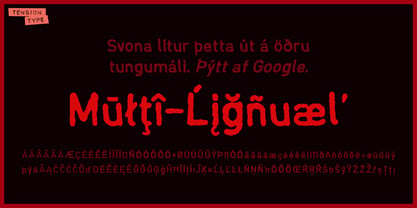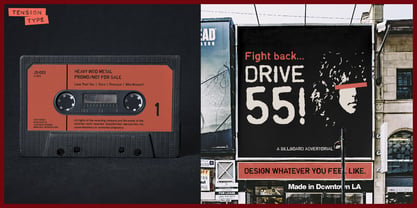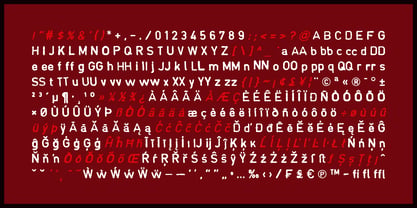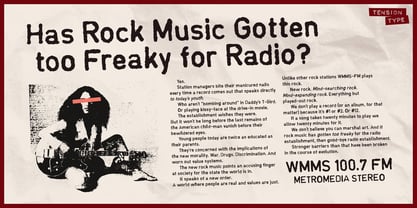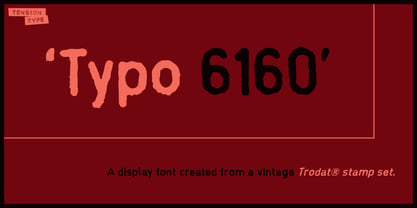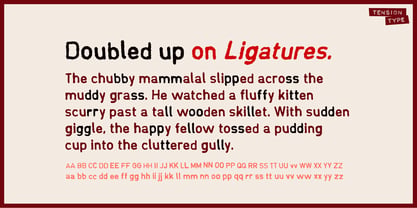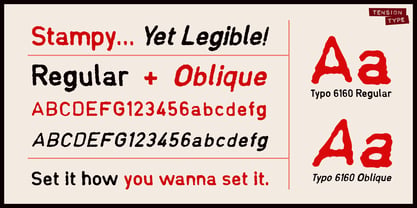
Typo 6160
by Tension Type
Typo 6160 was created from the letters of a vintage Trodat Typo 6160 stamp set that was made in the 1970s. I happened to find an unused set for sale on eBay. It arrive in perfect condition, even the ink pad was like new! It made perfectly stamped letters. Well, I intentionally made them “bad” good. There were a lot more characters to create, but that’s a really fun thing to do. This typeface will work well at small sizes but I did intent it to be used large sizes. I hope it’s just what you’ve been looking for :)